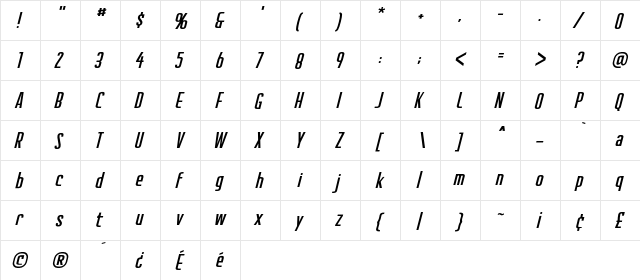
CreatorCredits BB Italic
| Foundry | Nate Piekos. Blambot.com |
| Designer | Nate Piekos |
Design Context for CreatorCredits BB Typeface
CreatorCredits BB offers clean, dependable letterforms without strong stylistic allegiance, making it a practical choice for designers who need flexibility. The dynamic lean of this cut emphasises speed and emphasis in any layout.
Pro Tip: Try CreatorCredits BB for annotation and caption copy alongside an upright companion — the contrast in angle creates a dynamic but ordered typographic system.